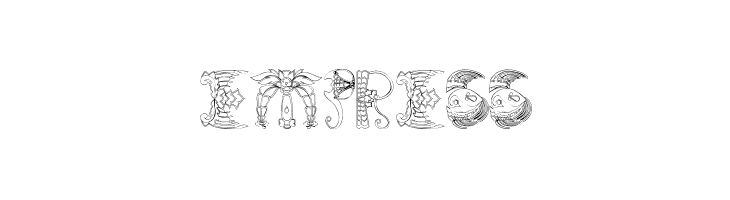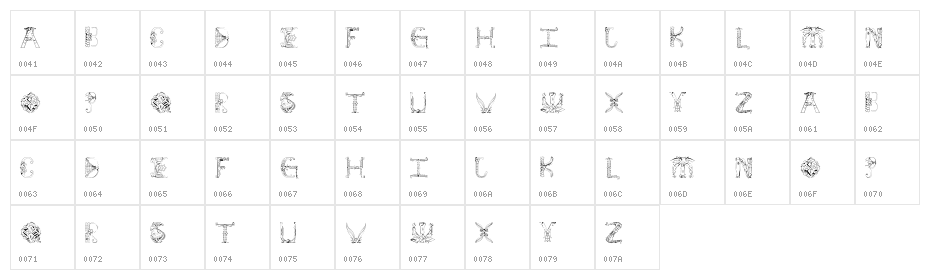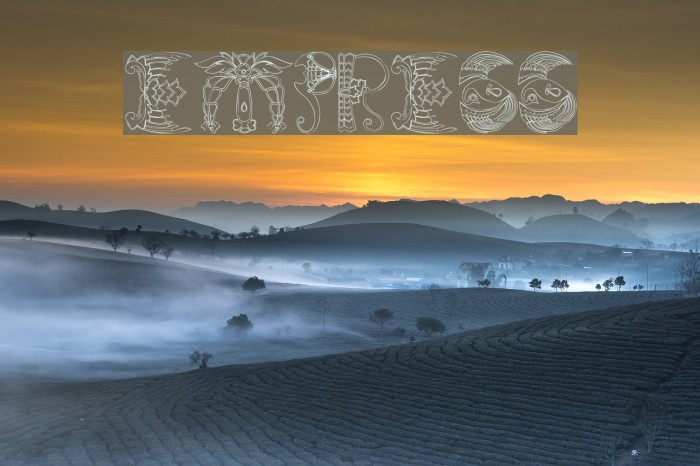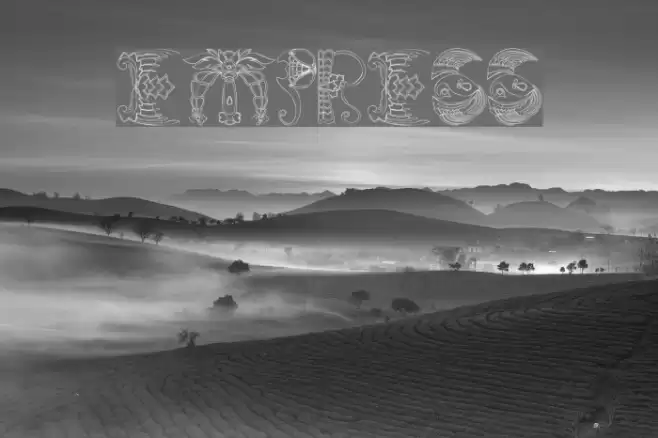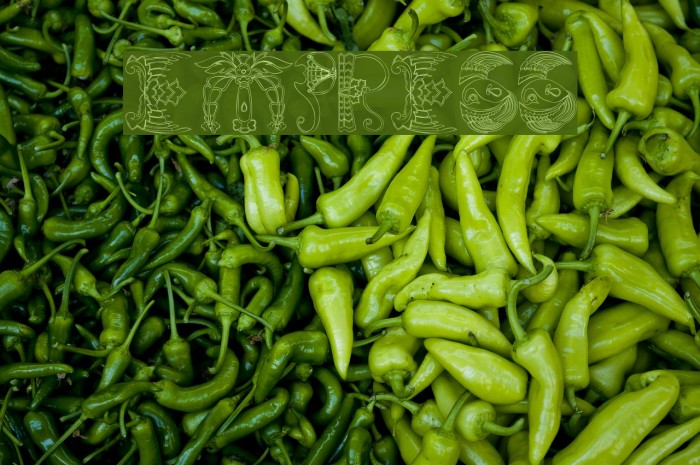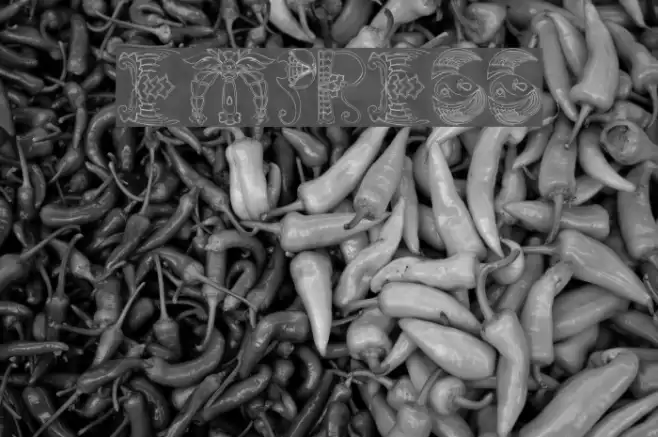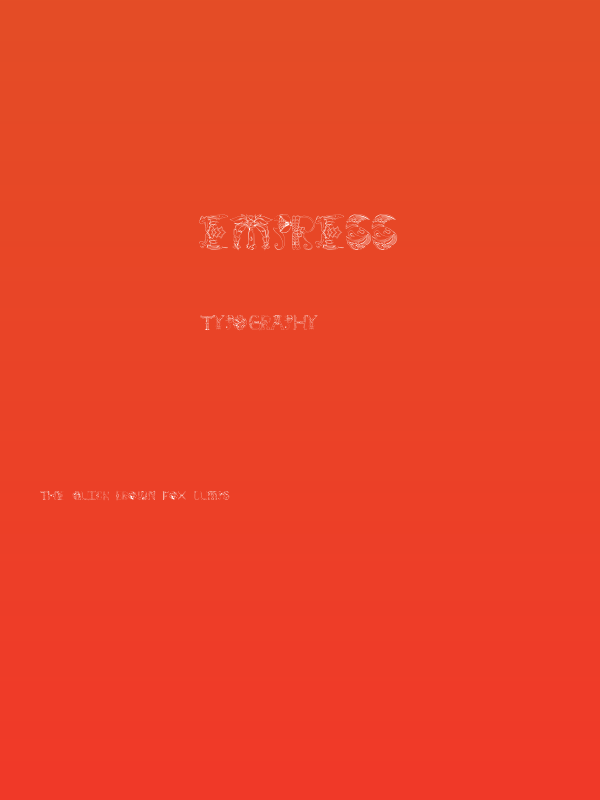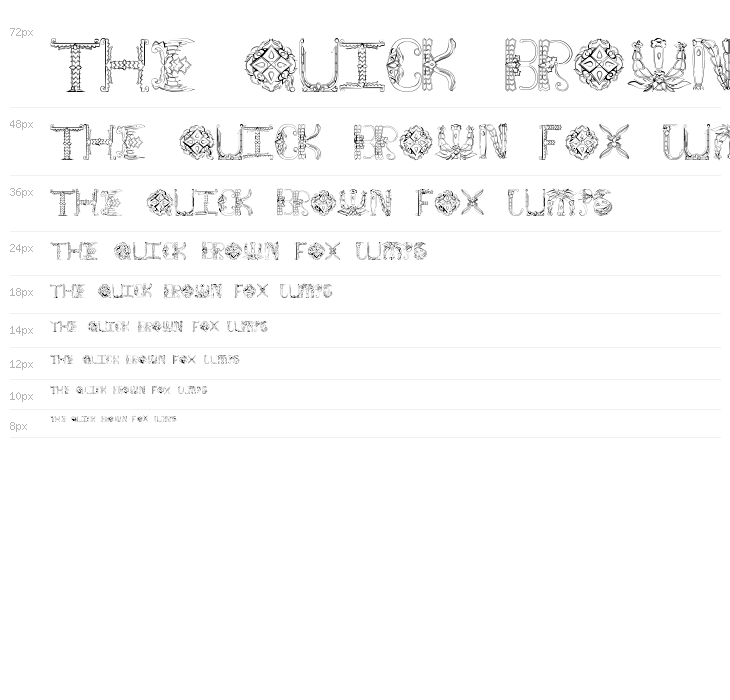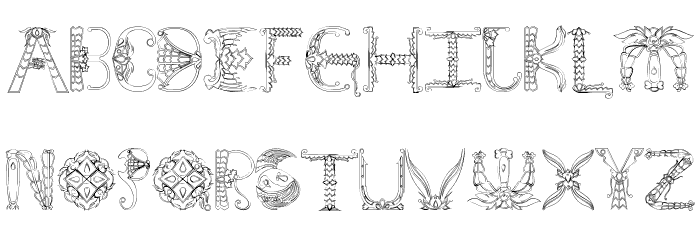
Empress Font
Empress Description
This font is a highly decorative and intricate typeface, featuring elaborate designs and embellishments within each letter. The characters are adorned with ornate patterns, including floral motifs, geometric shapes, and abstract elements, creating a visually rich and complex appearance. The font's artistic style is reminiscent of vintage or classical design, with a touch of whimsy and fantasy. Each letter is unique, showcasing a blend of creativity and craftsmanship that makes it stand out as a display typeface. The detailed nature of the font suggests a hand-drawn or illustrative approach, making it suitable for projects that require a distinctive and eye-catching aesthetic.
| Use Case | Headlines, Logos, Artistic projects |
| Proposed Projects | Ideal for use in artistic projects, invitations, posters, or any design that requires a unique and decorative touch. |